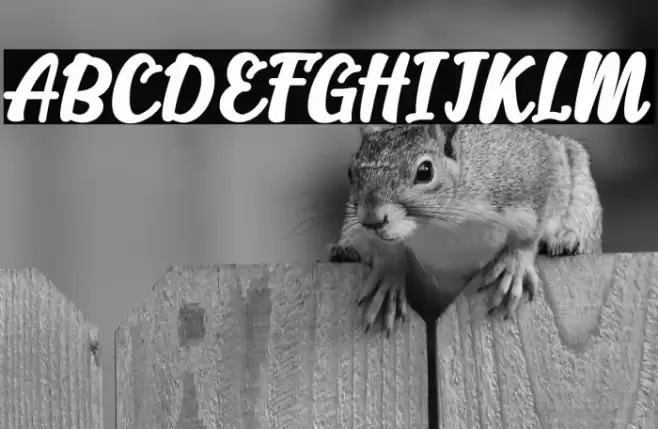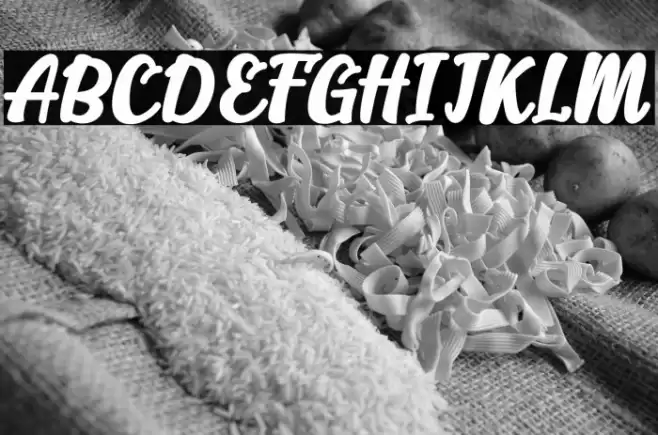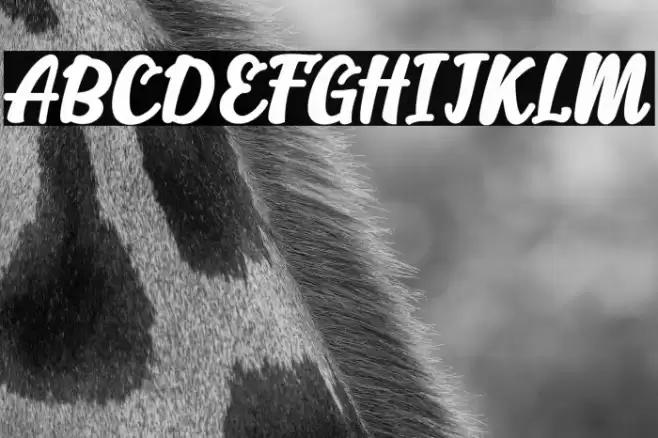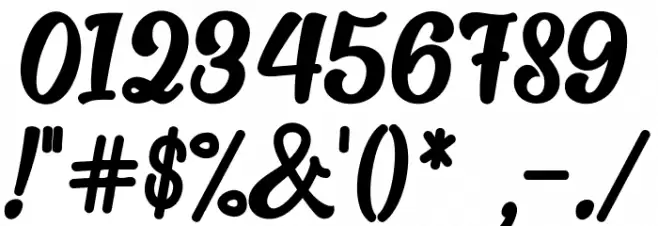
This font exhibits a bold and flowing script style, characterized by its smooth, connected strokes and rounded edges. The uppercase letters are slightly larger and more pronounced, while the lowercase letters maintain a consistent flow, enhancing readability. The numerals are distinct and well-proportioned, matching the overall aesthetic of the alphabet. Special characters are creatively integrated, maintaining the font's cohesive look. The design is both playful and elegant, making it suitable for a variety of creative applications.
A bold, flowing script font with smooth, connected strokes and rounded edges from Uncategorized fonts.
- Proposed Projects: Ideal for branding projects, invitations, greeting cards, and decorative signage.
- Use Case: Logos, Headlines, Invitations